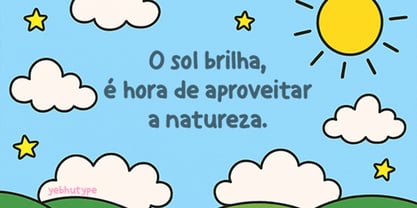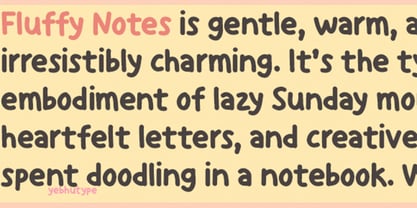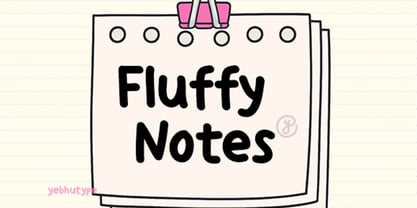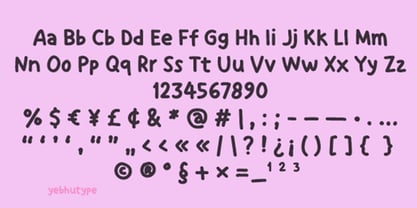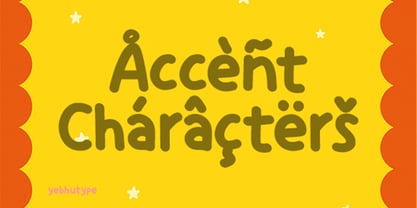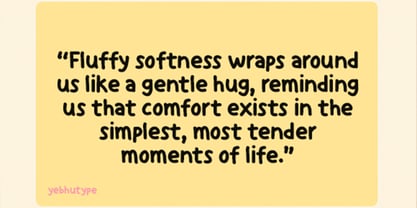
Fluffy Notes
by Yebhu
The Fluffy Notes Font Family was designed by Untung Prasetyo and published by Yebhu. Fluffy Notes contains 1 styles. More about this family
Fluffy Notes: A Soft Whisper of Handwritten Joy for Every Creative Moment
Introducing Fluffy Notes , a delicate and dreamy handwritten typeface that floats onto the page like a gentle breeze through your favorite notebook. Inspired by soft strokes, cozy scribbles, and the warmth of personal expression, Fluffy Notes brings a touch of tenderness to every design. With its airy curves, light texture, and graceful rhythm, this font isn’t just a typeface—it’s an embrace in typography form.
The Heart of Fluffy Notes
Fluffy Notes is all about comfort, charm, and connection. Designed to feel like a note passed between friends or a journal entry written during a quiet morning, it carries with it a sense of calm and sincerity. Each letter flows effortlessly into the next, creating a reading experience that feels both familiar and soothing. It’s perfect for creators who want their designs to whisper rather than shout—offering warmth without overwhelming the senses.
Whether you're crafting a heartfelt message, designing a cozy brand identity, or illustrating a children's story, Fluffy Notes delivers a soft, approachable tone that feels handmade and deeply personal.
Key Features
📝 Gentle Handwritten Style
Fluffy Notes mimics natural handwriting with a soft, flowing rhythm. It feels intimate and expressive, like words carefully penned in a cherished diary.
☁️ Lightweight & Airy Design
With thin strokes and open spacing, each character breathes easily on the page, making it ideal for designs that need a subtle yet meaningful presence.
🧸 Soft Curves & Rounded Edges
Every letter is shaped with care—rounded corners and smooth transitions give the font a comforting, non-threatening appearance.
🎨 Expressive & Emotional
Despite its simplicity, Fluffy Notes carries emotional depth. It can be sweet, nostalgic, whimsical, or even poetic—perfect for storytelling and emotional branding.
📚 Highly Readable at Any Size
From elegant headlines to gentle body text, Fluffy Notes maintains clarity and grace across sizes and formats.
🔤 Comprehensive Character Set
Includes uppercase, lowercase, numerals, punctuation, and basic diacritics—making it versatile for international use and multi-purpose projects.
Mood & Personality
Fluffy Notes radiates calmness, kindness, and creativity. It’s the typographic equivalent of a warm cup of tea, a fuzzy blanket, or a handwritten letter from someone you love. This font speaks softly but leaves a lasting impression—ideal for projects that aim to soothe, inspire, or connect on a deeper level.
It’s the go-to choice when you want your design to feel human, heartfelt, and full of soul.
Perfect For
📘 Children’s Books, Diaries & Journals
Create stories and entries that feel warm, inviting, and emotionally engaging for young readers and writers.
💌 Personalized Stationery & Greeting Cards
Add a soft, sincere touch to thank-you cards, love letters, or memory keepsakes that speak from the heart.
🌸 Wellness, Lifestyle & Boutique Branding
From yoga studios to boutique cafes, Fluffy Notes adds a serene, organic vibe that enhances peaceful, lifestyle-focused brands.
📱 Social Media & Digital Content
Use it in quotes, captions, or Instagram stories to bring a sense of authenticity and warmth to your online presence.
🖌️ Digital Planners, Notebooks & Stickers
Ideal for Canva templates, digital stickers, or printable planners where softness and readability are key.
🖼️ Art Prints & Wall Decor
Design motivational prints, nursery art, or inspirational quotes that feel calming and uplifting.
Why Choose Fluffy Notes?
In a world filled with bold fonts and high-contrast designs, Fluffy Notes stands out by doing the opposite—it draws people in gently. It reminds us that not every message needs to scream to be heard. Sometimes, the most powerful designs are those that feel close, personal, and full of feeling.
Choose Fluffy Notes when you want your work to feel less like design and more like a conversation.
Let Your Words Drift with Grace
With Fluffy Notes , your words don't just appear—they float, they dance, they comfort. Whether you're designing for yourself or for others, this font helps your message land with softness and sincerity.
P.S.: Fluffy Notes isn’t just a font—it’s a moment. A sigh of relief. A smile in script. A gentle reminder that beauty often lives in the softest places.